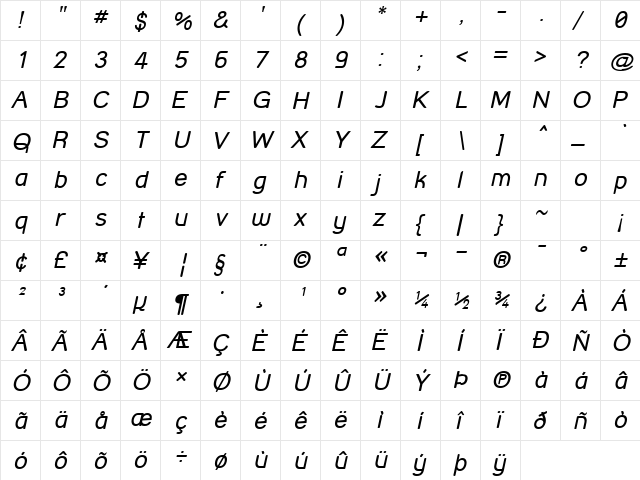
Street Corner Oblique Regular
Street Corner Oblique takes a measured approach to typography — its balanced proportions and neutral character make it a reliable workhorse for both digital and print work. The slanted form adds forward momentum and visual energy.
Pro Tip: Use Street Corner Oblique for emphasis, pull quotes, and subheadings where its slanted energy can add rhythm to the layout.